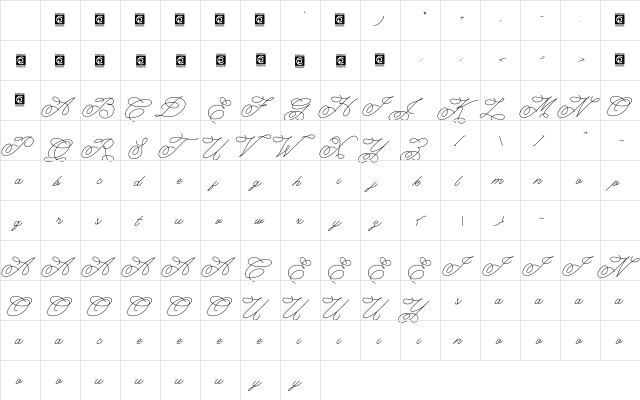
Complete Ultimate Class Free Version Regular glyph index. Displaying only characters natively supported by Ultimate Class Free Version Regular font.
Ultimate Class Free Version is a composed and adaptable typeface that performs quietly and consistently across a wide range of design contexts.